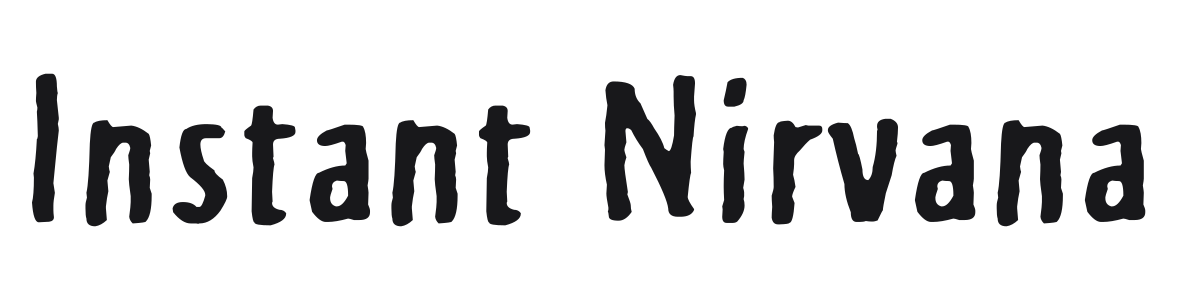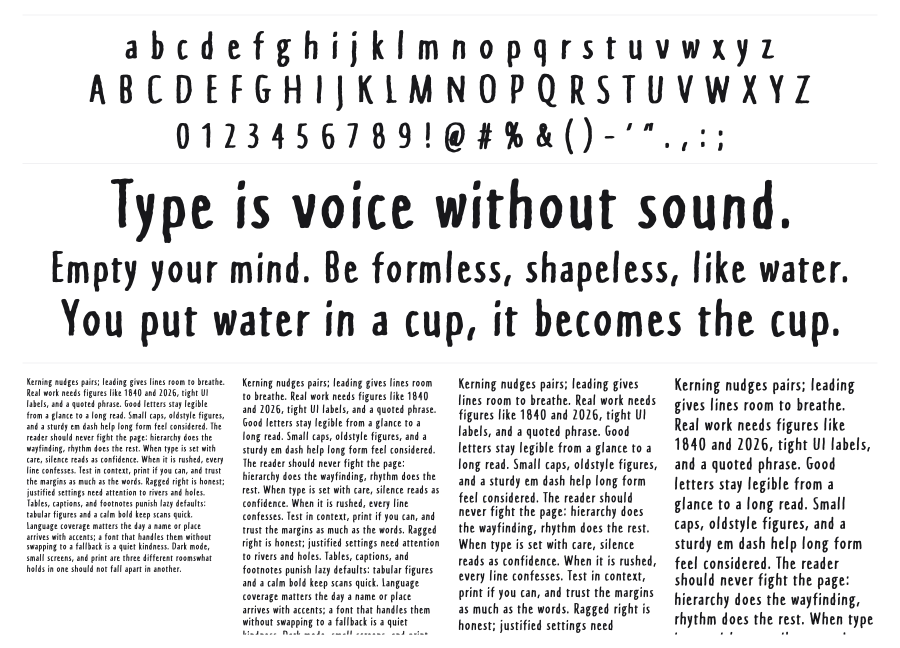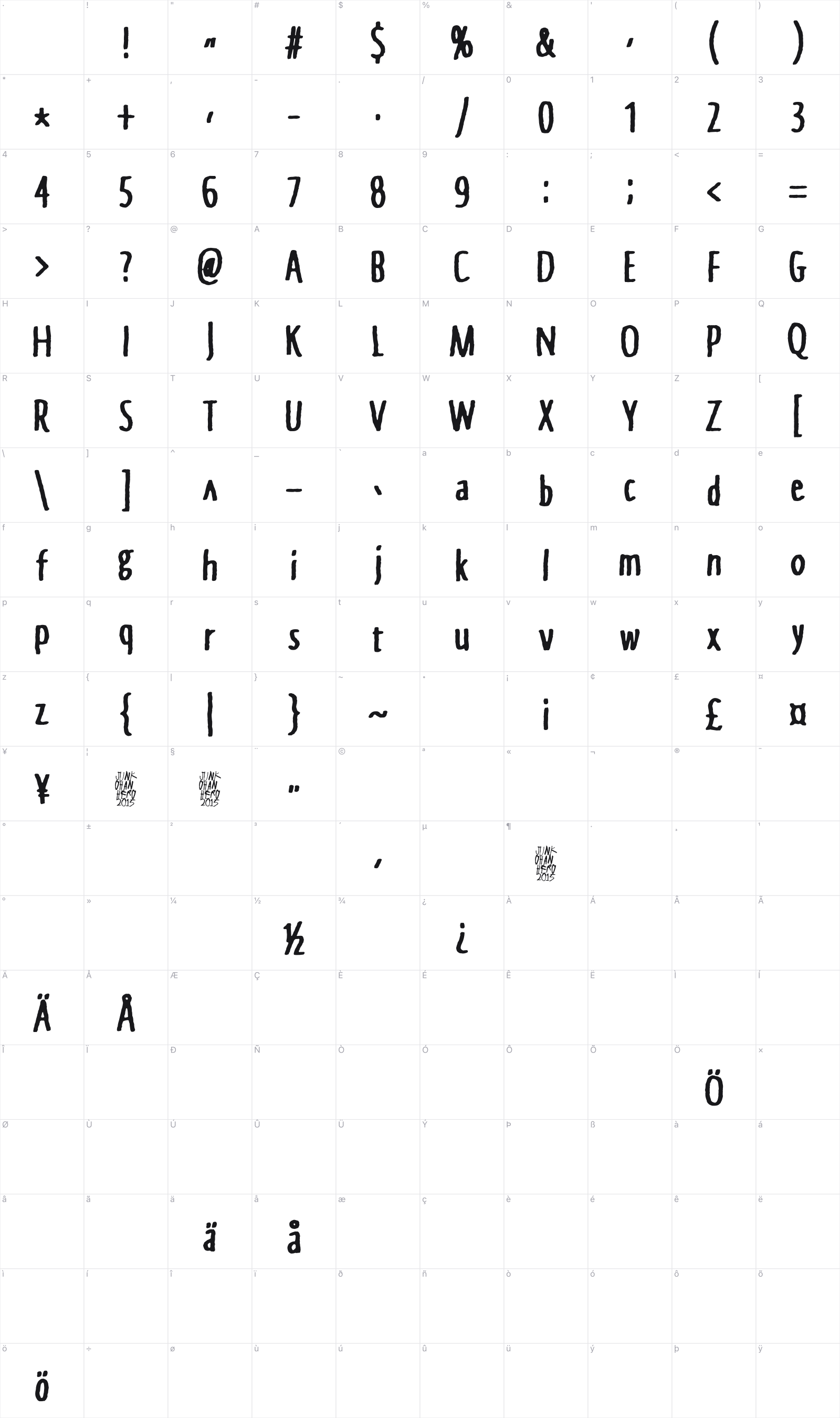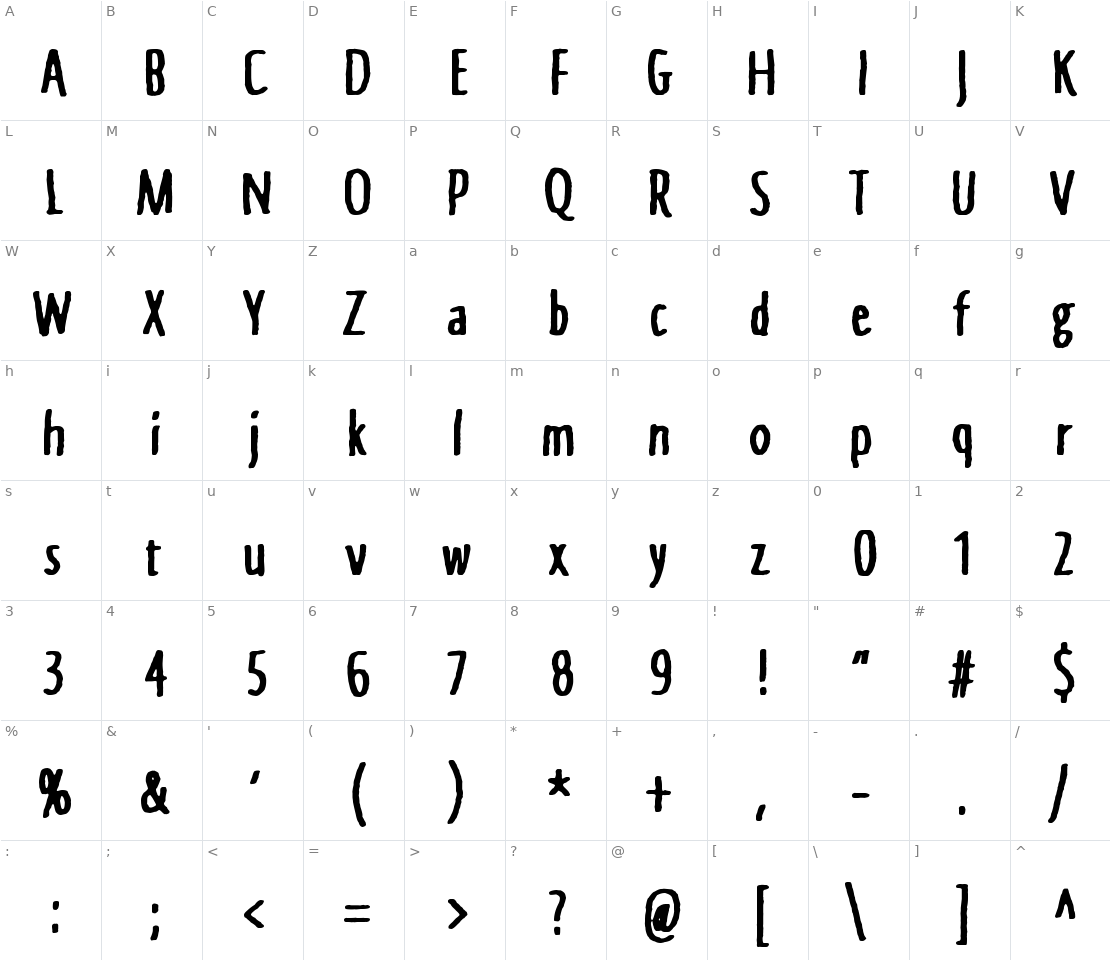
Instant Nirvana
Instant Nirvana is a bold distressed sans with hand-drawn roughness and ink-trap irregularities baked into every character. It channels 1990s grunge aesthetics through heavy strokes and ragged edges that look almost stamped or woodblock-printed. Strong for music posters, band merch, and anything that benefits from an unpolished, underground energy.